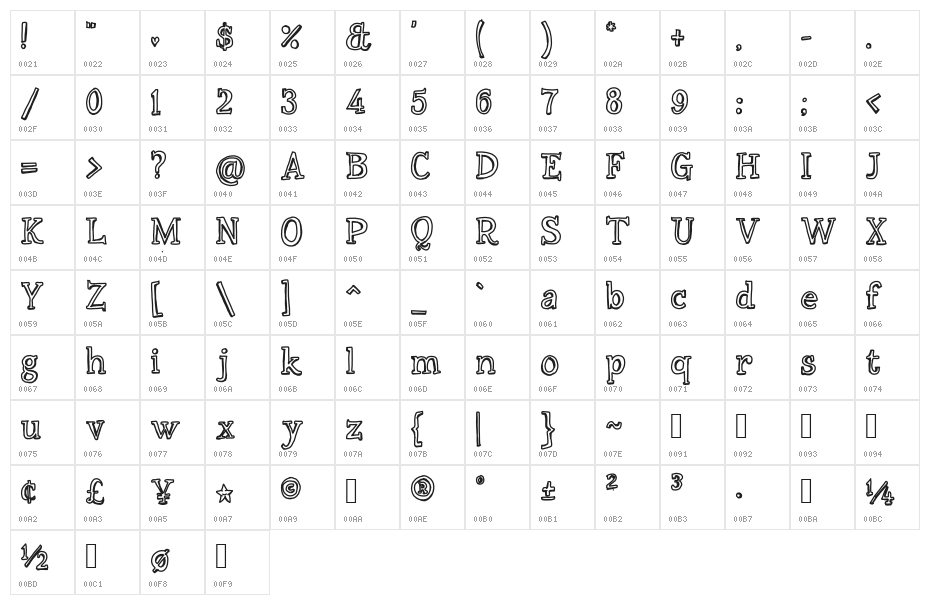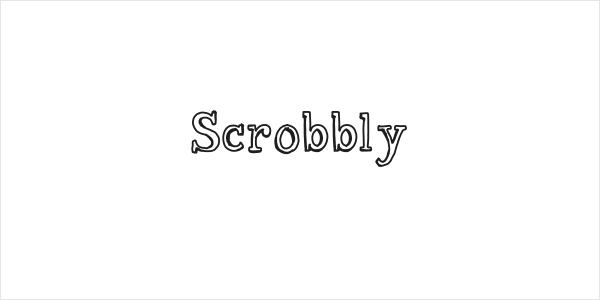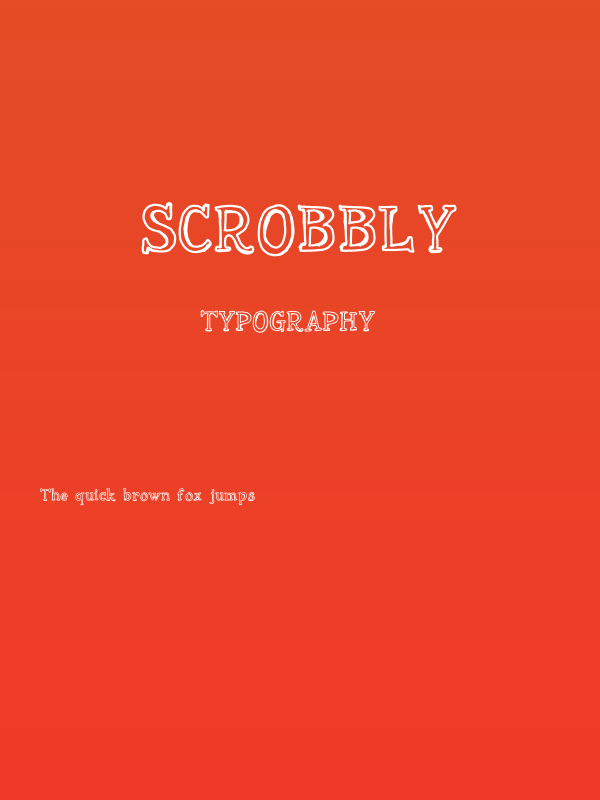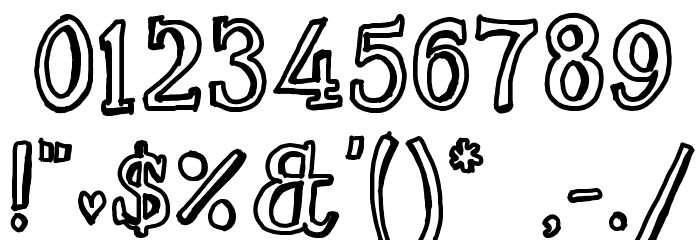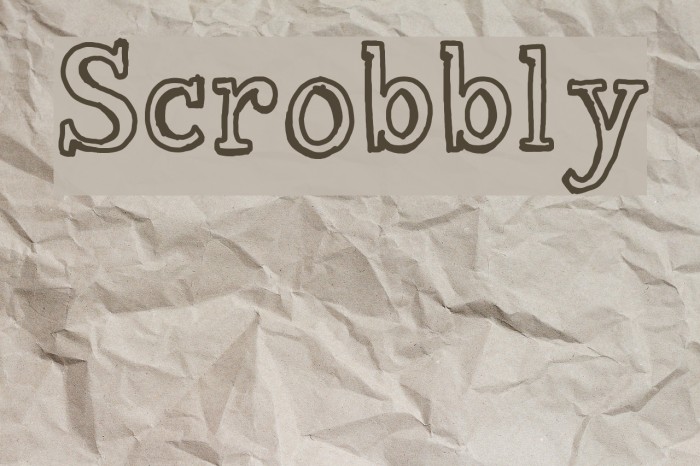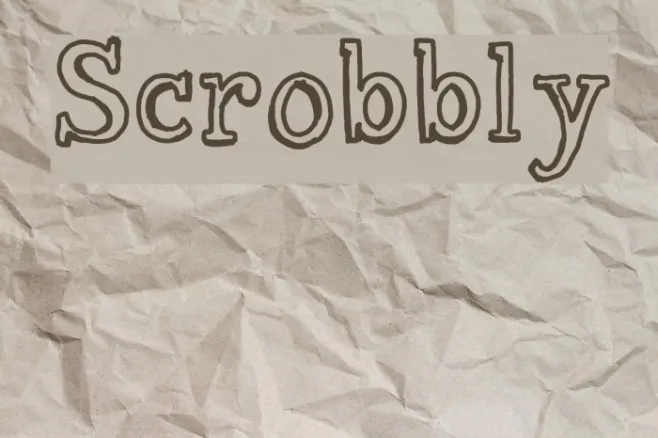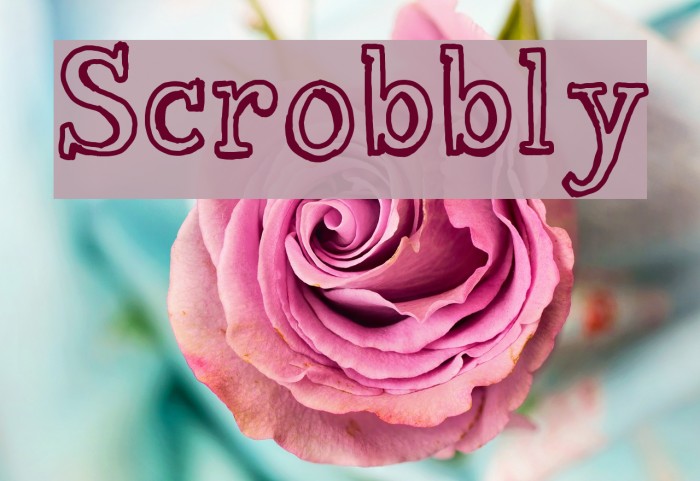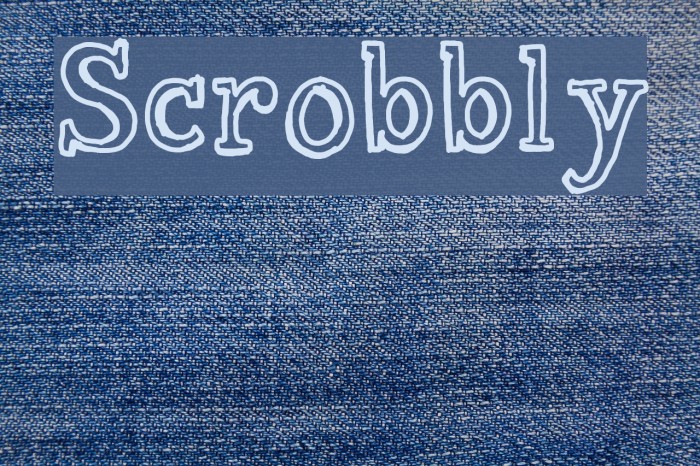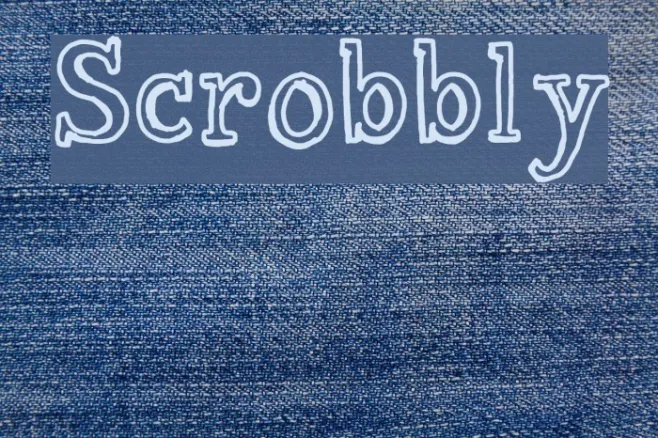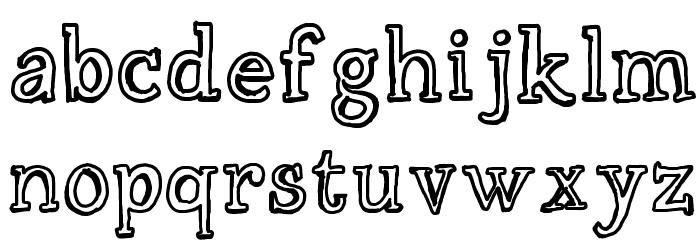
Scrobbly Font
Scrobbly Description
This font features a playful and whimsical design, characterized by its bold, hand-drawn appearance. Each letter is outlined with a thick, uneven stroke, giving it a sketch-like quality that adds a sense of fun and creativity. The uppercase and lowercase letters maintain a consistent style, with rounded edges and a slightly irregular form that enhances its casual and artistic vibe. Numbers and special characters are crafted with the same attention to detail, ensuring a cohesive look across all elements. This font's unique style makes it stand out, perfect for projects that require a touch of individuality and charm.